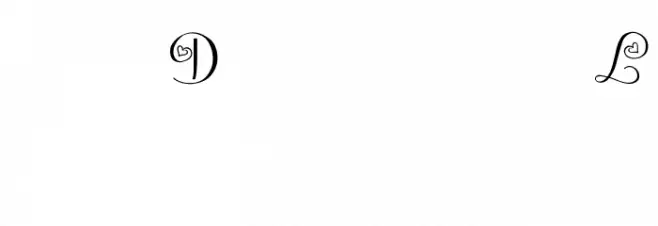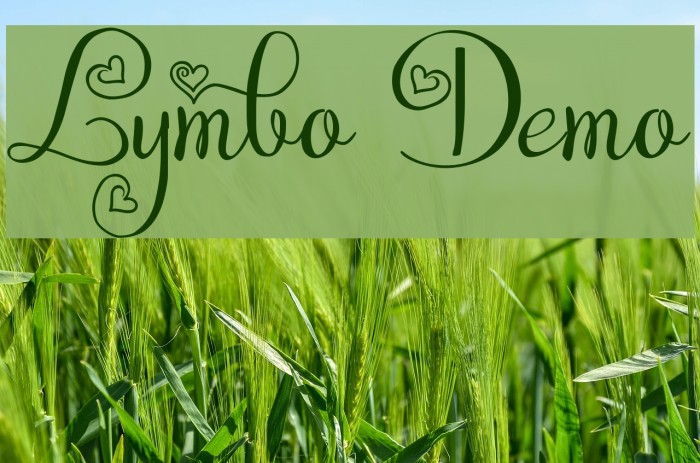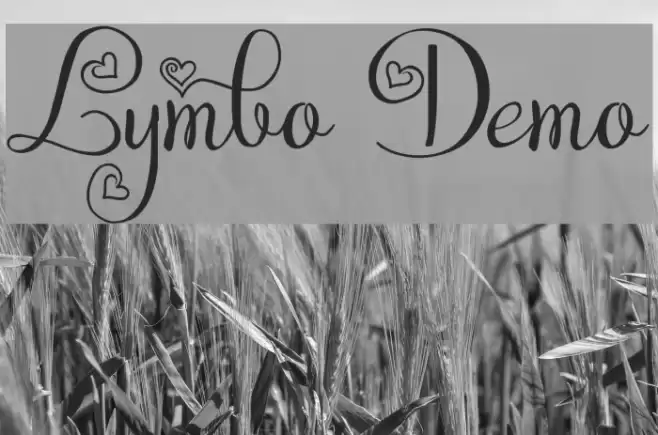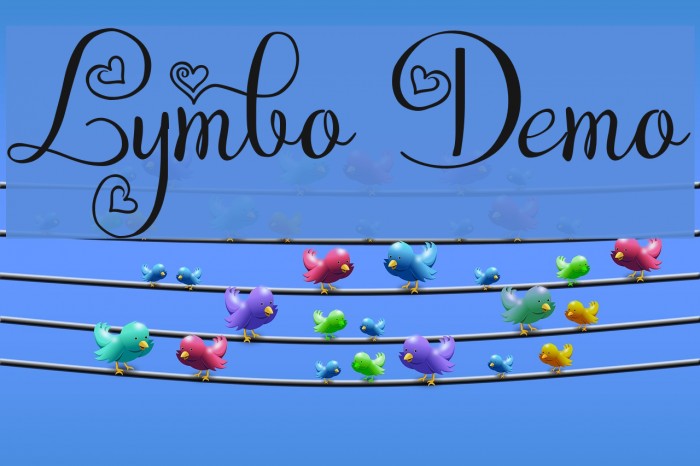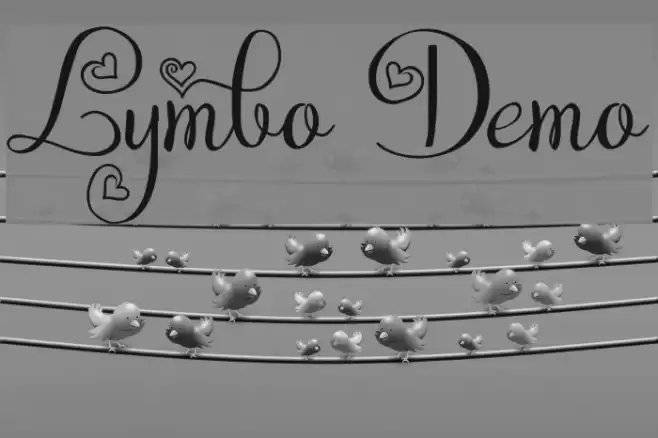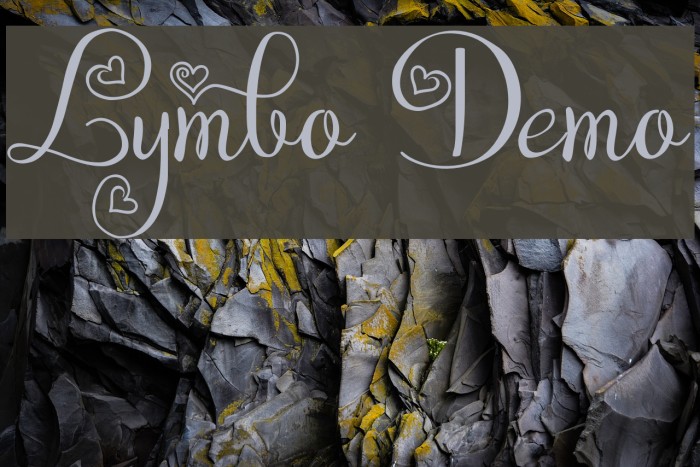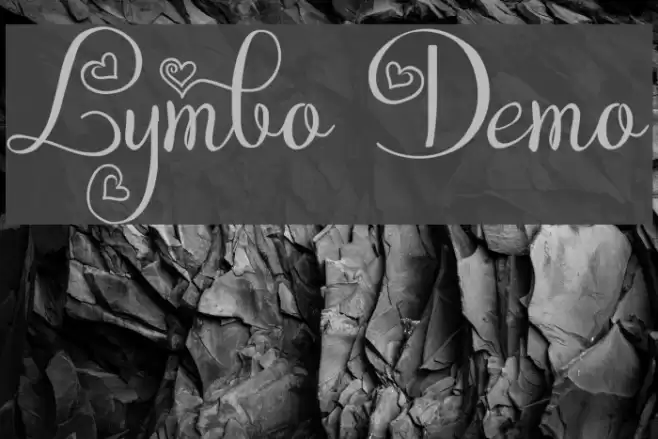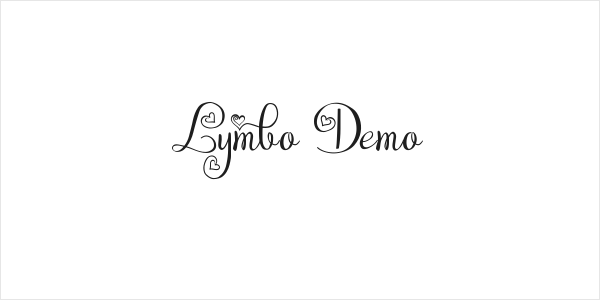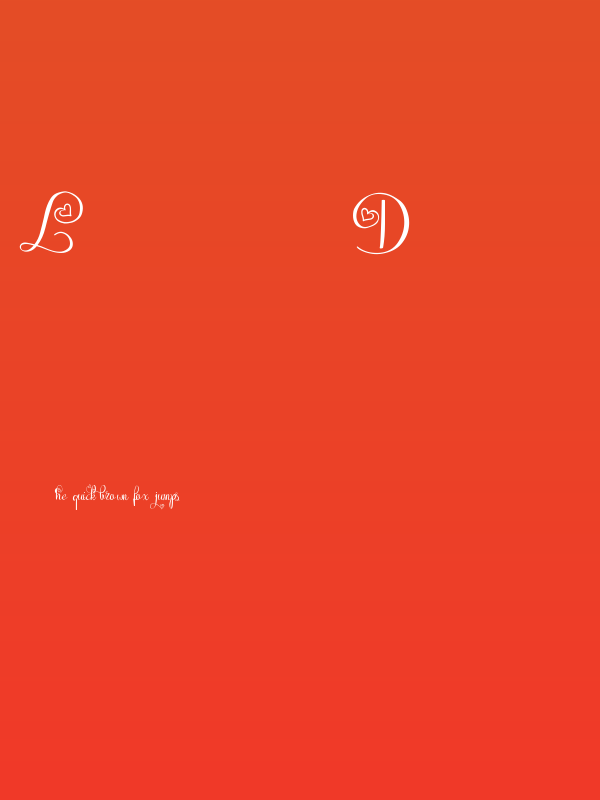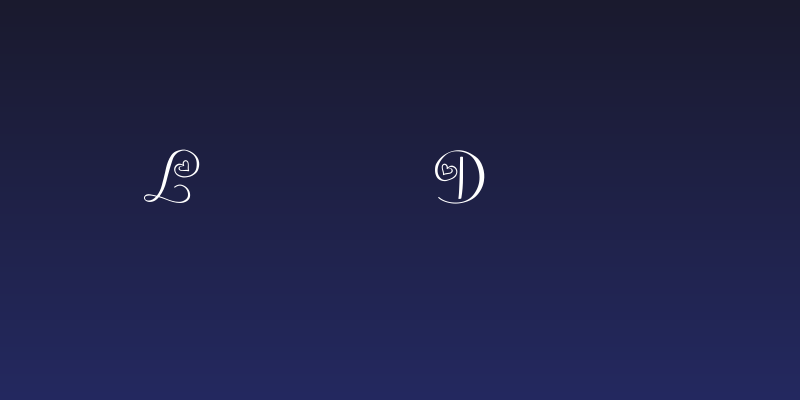
Lymbo Demo Font
Lymbo Demo Description
This font features a whimsical and decorative style, characterized by elegant, flowing script letters adorned with heart motifs. The uppercase letters are bold and prominent, while the lowercase letters maintain a consistent, graceful flow. The font's playful nature is enhanced by the inclusion of heart shapes integrated into the letterforms, adding a romantic and charming touch. The overall design is cohesive, with a consistent stroke width that provides a harmonious balance between the characters. This font is ideal for projects that require a touch of elegance and creativity.
| Proposed Projects | Ideal for wedding invitations, greeting cards, romantic branding, and decorative posters. |